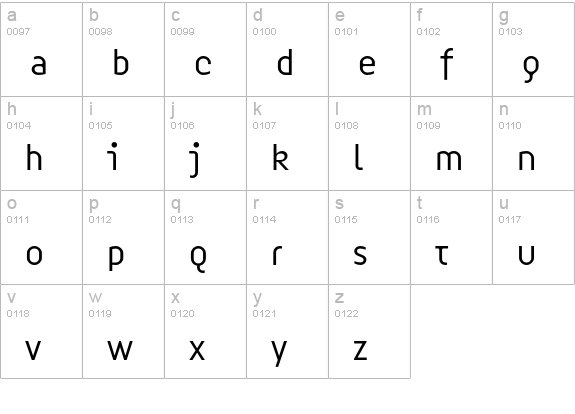
OgilveLFThin Font Details
OgilveLFThin is a modern and elegant typeface that exudes sophistication and style. With its thin and delicate letterforms, this font is perfect for creating sleek and contemporary designs. The clean lines and minimalist aesthetic of OgilveLFThin make it a versatile choice for a variety of projects, from branding to editorial design. What sets OgilveLFThin apart is not only its striking appearance but also the fact that it is available for free download at FontsMarket.com. This means that designers and creatives can access this high-quality font without any cost, making it a valuable asset for both personal and commercial use. Whether you're designing a logo, creating a poster, or working on a website, OgilveLFThin offers a refined and polished look that will elevate your projects to the next level. Don't miss out on the opportunity to enhance your designs with OgilveLFThin. Download this exquisite font for free today and add a touch of sophistication to your work.